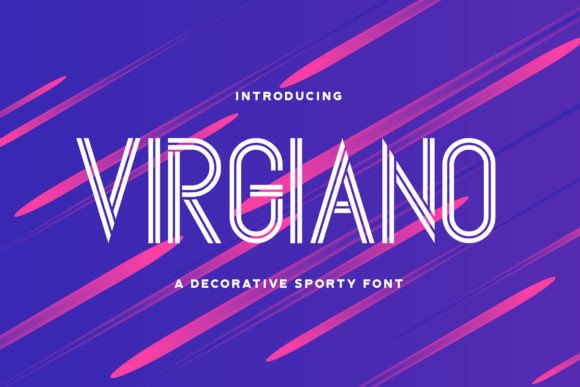
Looking for the best font for digital display? Look no further than Virgiano Font, a stunning decorative sporty font designed by StringLabs. With its modern and playful design, Virgiano is the perfect choice to make your digital content stand out from the crowd.
Virgiano is not your typical font - it's a game-changer. Whether you're designing a football jersey, basketball jersey, soccer jersey, or any other sports-related project, this font will take your design to the next level. Its unique and eye-catching style will make your sports content truly outstanding.
Imagine the impact Virgiano Font can have on your digital display. It's like a power boost for your content, instantly grabbing attention and captivating your audience. With its bold and energetic characters, this font exudes the spirit of competition and athleticism.
But it's not just about looks - Virgiano Font is also highly functional. Its display font family ensures legibility, even at smaller sizes. Your message will be crystal clear, making it easier for your audience to connect with your brand.
In addition to its striking appearance, Virgiano Font is also incredibly versatile. It can be used in a wide range of contexts, from sports events to social media posts, website headers to promotional materials. No matter where you use it, this font will leave a lasting impression.